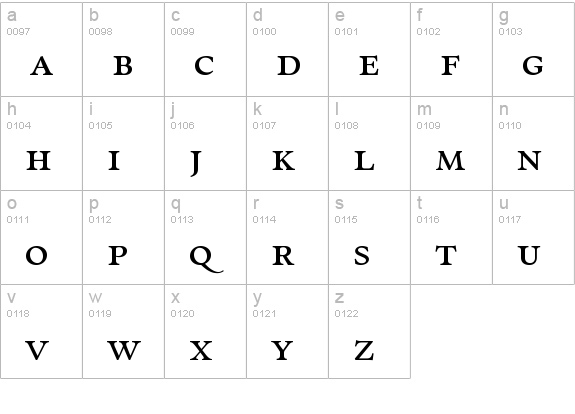
Elmhurst-SmallCaps Font Details
Elmhurst-SmallCaps is a sophisticated and elegant font that exudes a timeless charm. Its slender, small caps style adds a touch of class to any design project, making it perfect for invitations, branding, and editorial layouts. With its clean lines and modern aesthetic, Elmhurst-SmallCaps strikes the perfect balance between classic and contemporary. What sets Elmhurst-SmallCaps apart is not just its striking appearance, but also its accessibility. This font is available for free download at FontsMarket.com, making it easy for designers and creatives to incorporate its refined style into their work without any cost barriers. Embrace the beauty and versatility of Elmhurst-SmallCaps today and elevate your designs with this exquisite typeface.